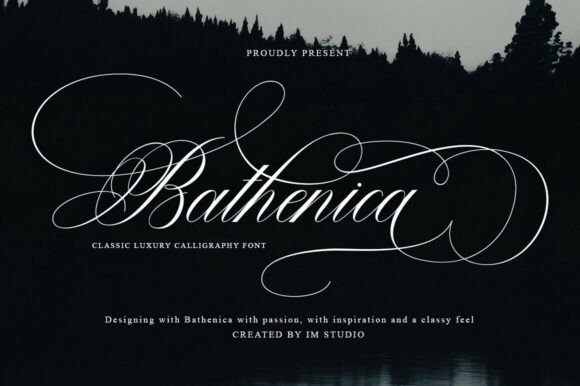
Bathenica Font: Elevate Your Design with Elegance and Sophistication
In the world of typography, few fonts manage to capture the essence of refinement and elegance as effortlessly as Bathenica. This exquisite calligraphy script font is a masterclass in blending womanly charm with an amorous touch, resulting in a visual language that exudes ageless sophistication. Whether you’re a designer, artist, or simply someone who appreciates the beauty of fine typography, Bathenica is sure to leave a lasting impression.
The Unique Charm of Bathenica
So, what sets Bathenica apart from other fonts in the same category? The answer lies in its meticulous design, which seamlessly weaves together the finest elements of calligraphy and script typography. Each letter is carefully crafted to interact harmoniously with its neighbors, creating a fluid and natural reading experience that draws the viewer in. The result is a font that not only looks stunning but also offers exceptional readability – a rare combination in the world of typography.
A Font that Offers Creative Flexibility
One of the standout features of Bathenica is its impressive range of styles for different characters. This diversity allows designers to experiment with various creative expressions, making it an ideal choice for projects that require a high degree of customization. Whether you’re working on a luxury brand identity, a wedding invitation, or a packaging design, Bathenica provides the flexibility to adapt to any visual requirement.
Bathenica: More than Just a Font
Bathenica is far more than a simple alphabet; it’s an artful language in its own right. With its elegant strokes, refined lines, and beautiful ligatures, this font has the power to transform your work into something truly special. Whether you’re looking to add a touch of sophistication to your branding, create a lasting impression with your marketing materials, or simply elevate your design skills, Bathenica is the perfect choice.
The Benefits of Using Bathenica
So, what are the benefits of using Bathenica in your design projects? Here are just a few:
- Elegance and Sophistication: Bathenica adds a touch of refinement and luxury to any design project.
- Exceptional Readability: The font’s seamless letter interactions make it easy to read, even at smaller sizes.
- Creative Flexibility: With a range of styles for different characters, Bathenica offers endless creative possibilities.
- Attention to Detail: The font’s meticulous design ensures that every detail, from ligatures to kerning, is carefully considered.
In conclusion, Bathenica is a truly exceptional font that offers a unique combination of elegance, sophistication, and creative flexibility. Whether you’re a seasoned designer or just starting out, this exquisite calligraphy script font is sure to elevate your design skills and leave a lasting impression on your audience. So why settle for an ordinary font when you can immerse yourself in the refined world of Bathenica?